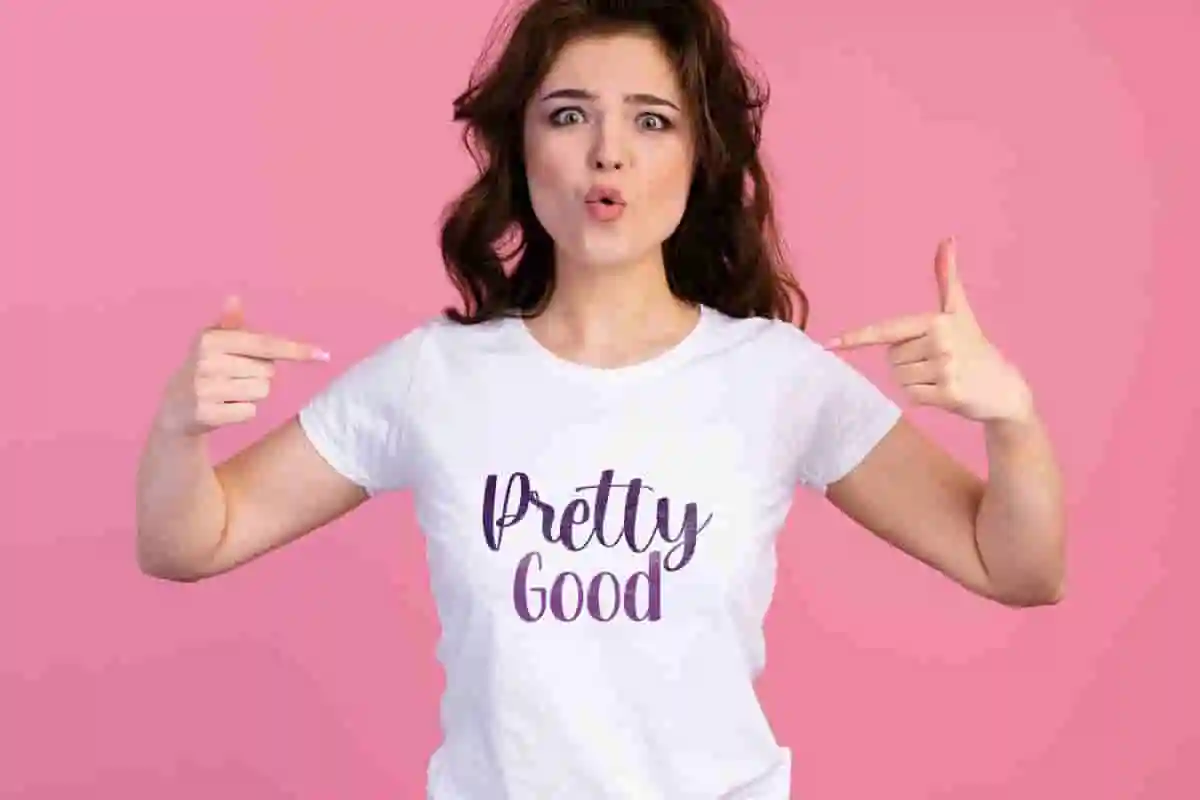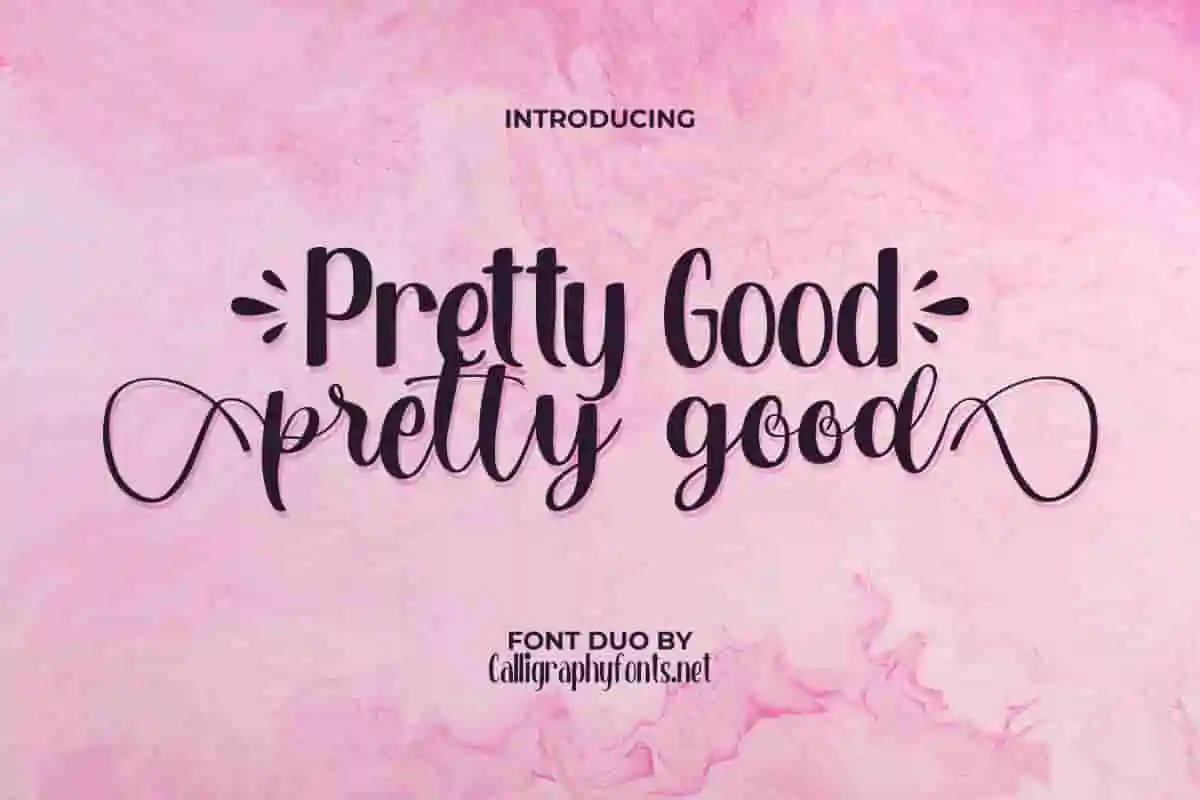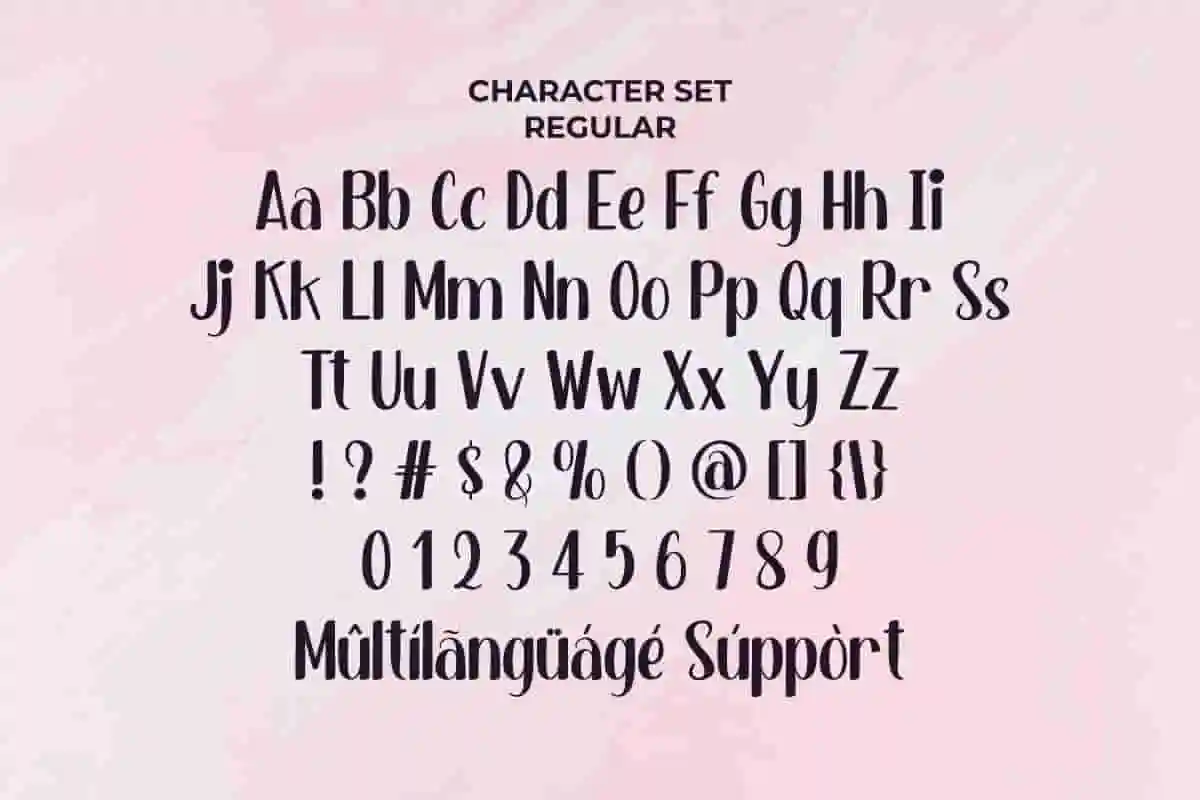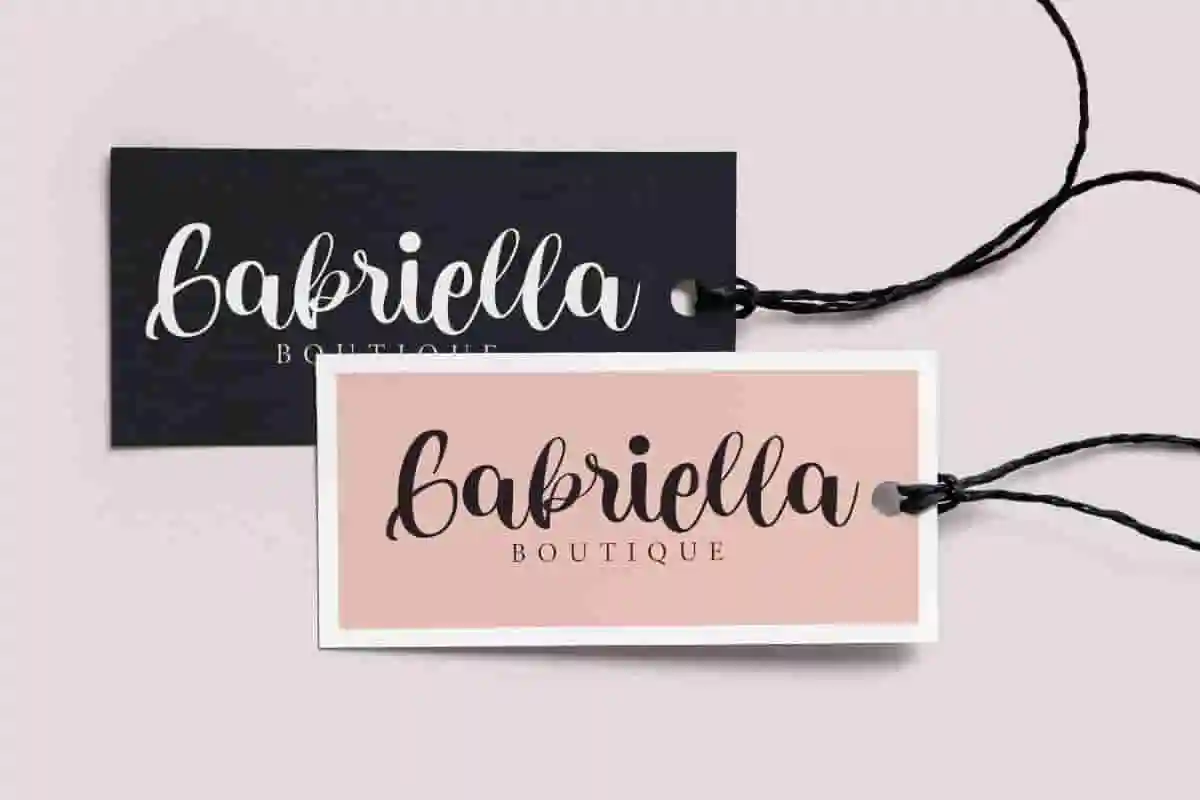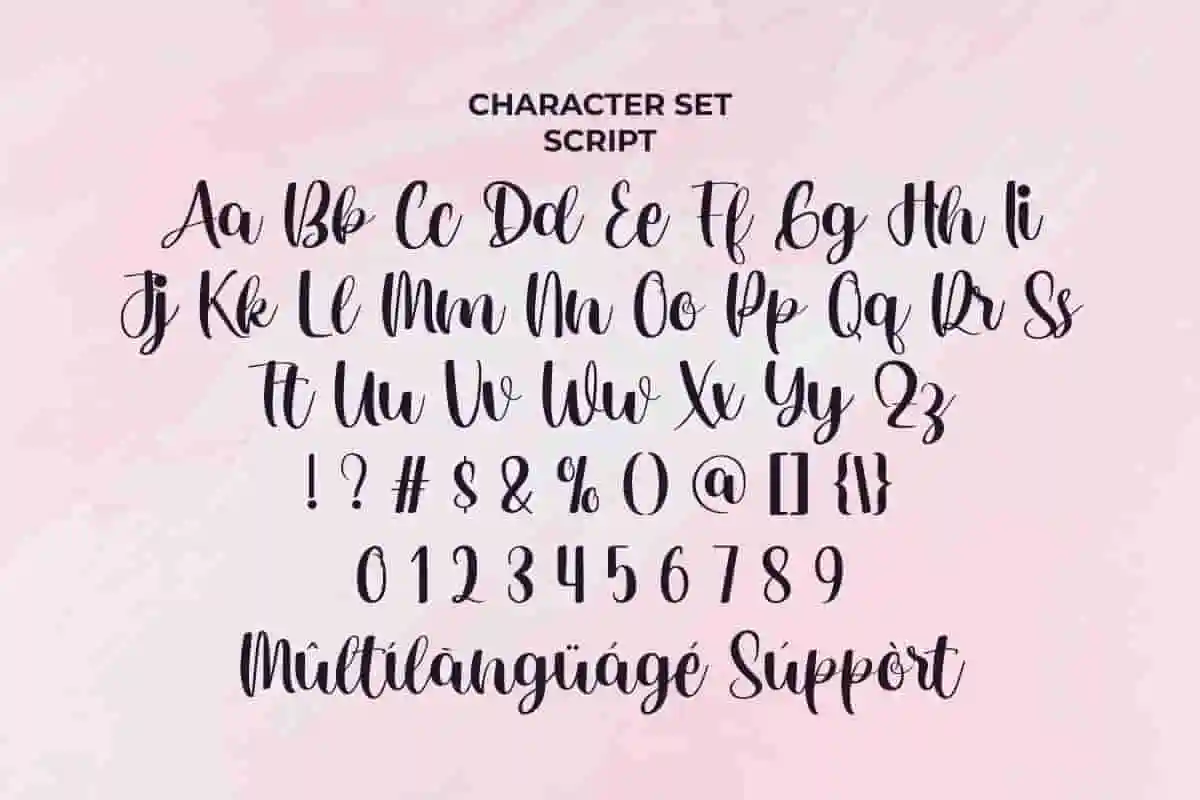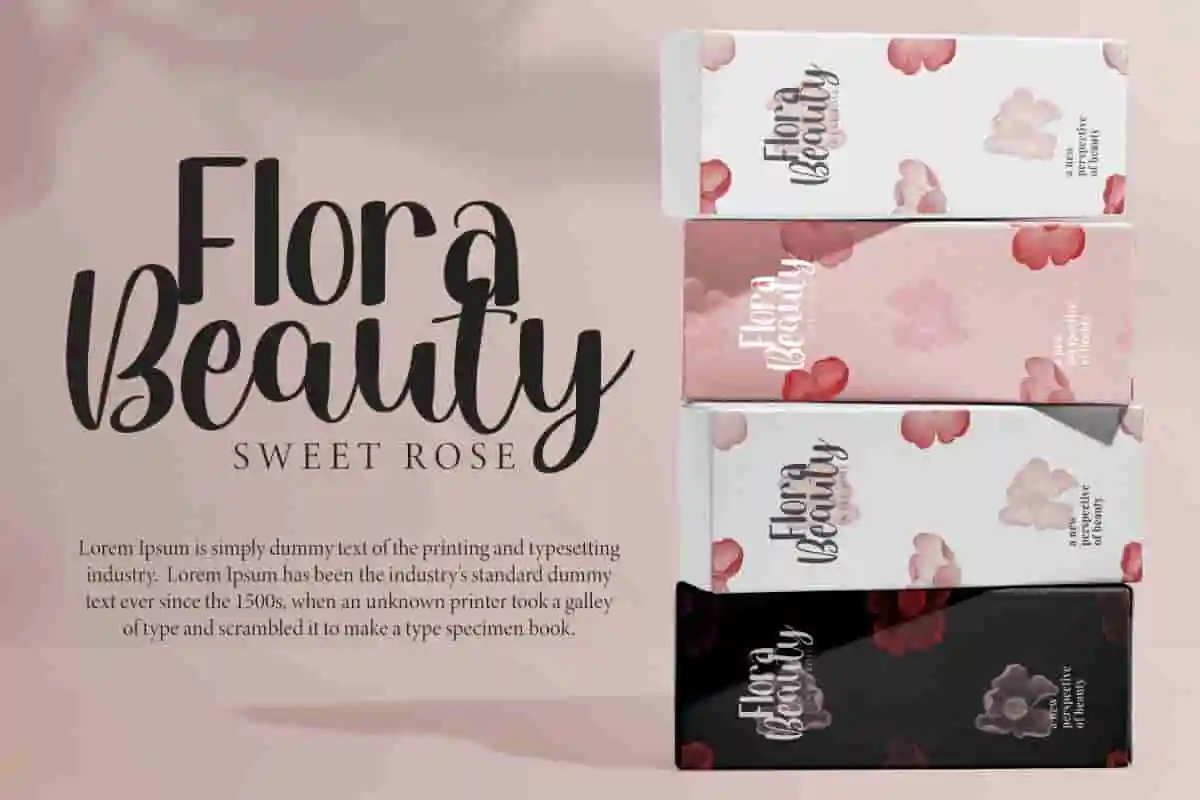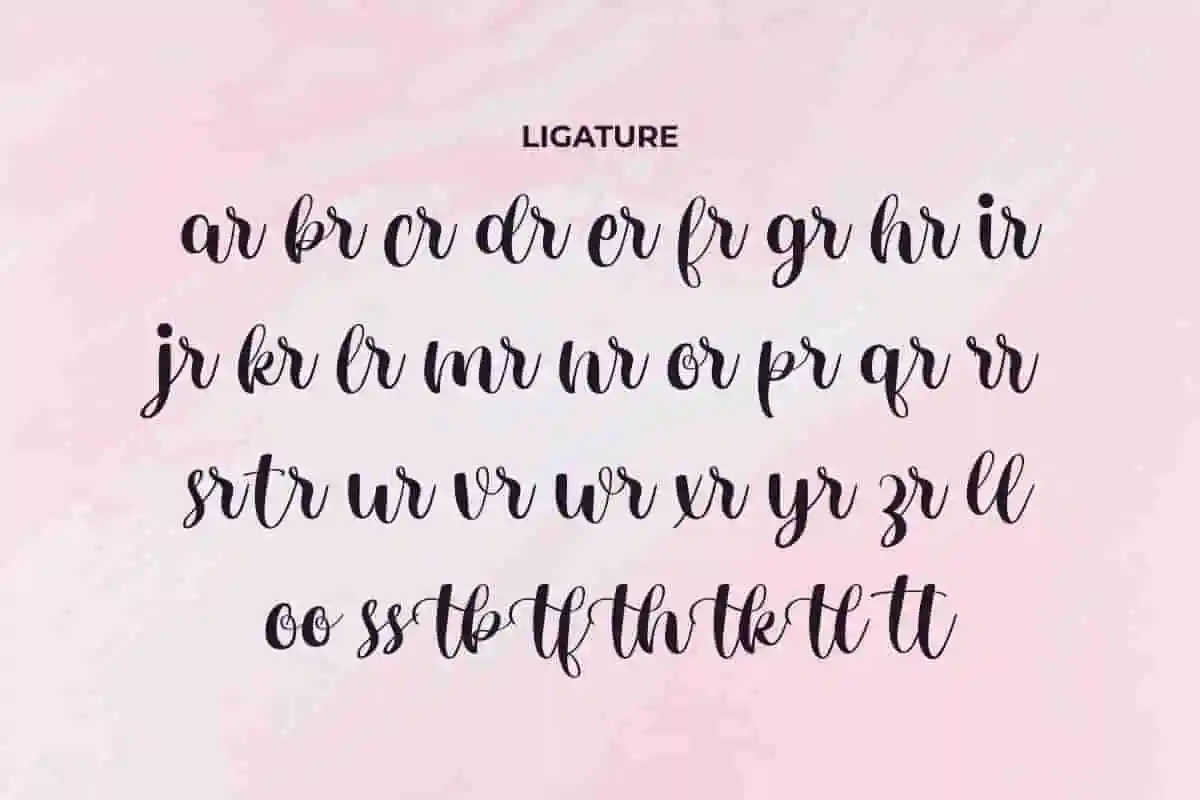
Pretty Good Display Font Duo
Pretty Good Font Duo, is a stunning calligraphy styled hand lettered script and added ligatures! perfect for craft projects, DIY, invitations, brandings, and many more.
Pretty Good Font is a Font Duo with two cute and pretty styles : Regular and Calligraphic Script font. Both fonts can bring uniqueness and casual handwriting feels to your projects. This fun new font duo will be perfect for creating product designs, quotes, brands, crafting, birthday invitations, wedding or just adding a handwritten touch to any projects!
Say hello to Pretty Good Display Font — a fresh, fun, and confidently stylish typeface that lives up to its name. With bold strokes, playful curves, and modern charm, this font is ready to bring joy and impact to your next design project.
Pretty Good is perfect for branding, social media graphics, packaging, posters, merchandise, and anything that needs to stand out while staying lighthearted. Its clean yet quirky letterforms make it a versatile choice for both professional use and creative play.
retty Good Display Font — a modern typeface that blends playful energy with confident style. Designed to turn heads and make statements, this font is everything your next project needs to stand out.
With its chunky curves, smooth edges, and youthful character, Pretty Good is perfect for fashion branding, Instagram graphics, YouTube thumbnails, lifestyle blogs, packaging design, and creative logos. It’s the kind of font that says, “I’m bold, but not too serious.”
Introducing Pretty Good Display Font — a bold and friendly typeface that brings a fresh, modern look to any design. With its clean lines, smooth curves, and approachable vibe, this font strikes the perfect balance between playful and professional.
The Pretty Good Font comes with Uppercase – Lowercase – Numerals – Symbols & punctuation – Ligatures and Swoosh characters. We can also combine the two fonts to make it even great. This font is PUA encoded which means you can access all of the glyph and swashes with ease! Easy to install Mac and Windows Ligatures Include Multilingual Support